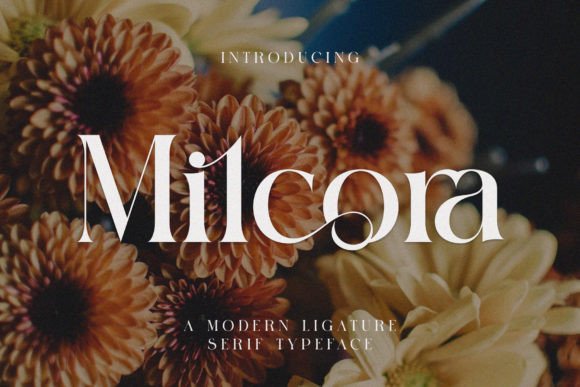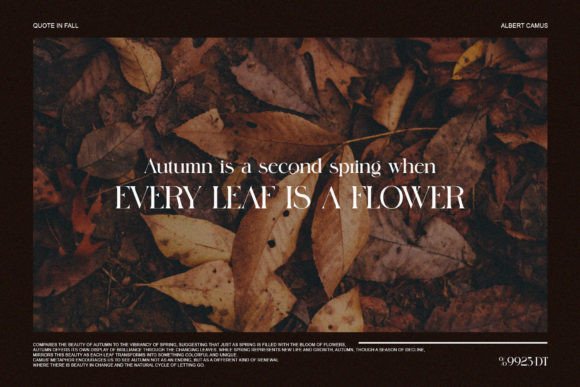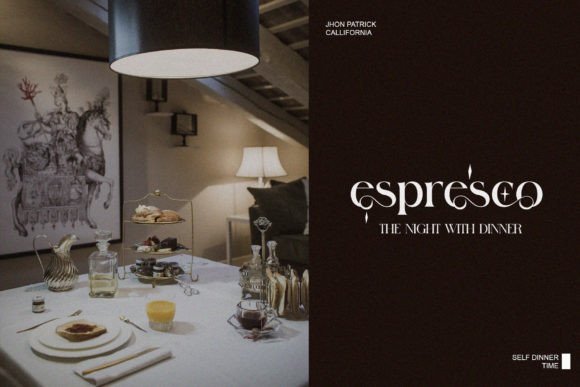
Milcora Font: Elegant Ligature Serif for Modern Branding & Logo Design
About the Milcora Font
We are excited to introduce Milcora Font, a must-have typeface for any serious designer. **Milcora** a modern serif font that evokes the beauty of fresh blooms and timeless elegance. With its bold yet refined ligatures, Milcora stands out as a sophisticated and feminine typeface. Perfect for upscale designs, whether for florals, fashion, or high-end branding, Milcora pairs the charm of classic serif styles with a modern twist. Every letter feels intentional, with a soft and graceful presence that elevates any project it touches.
Bring a touch of refinement and natural grace to your work with Milcora. Let this font breathe elegance into your designs, and watch them flourish with style and character.
Milcora Font Usage Examples
Milcora Font Example